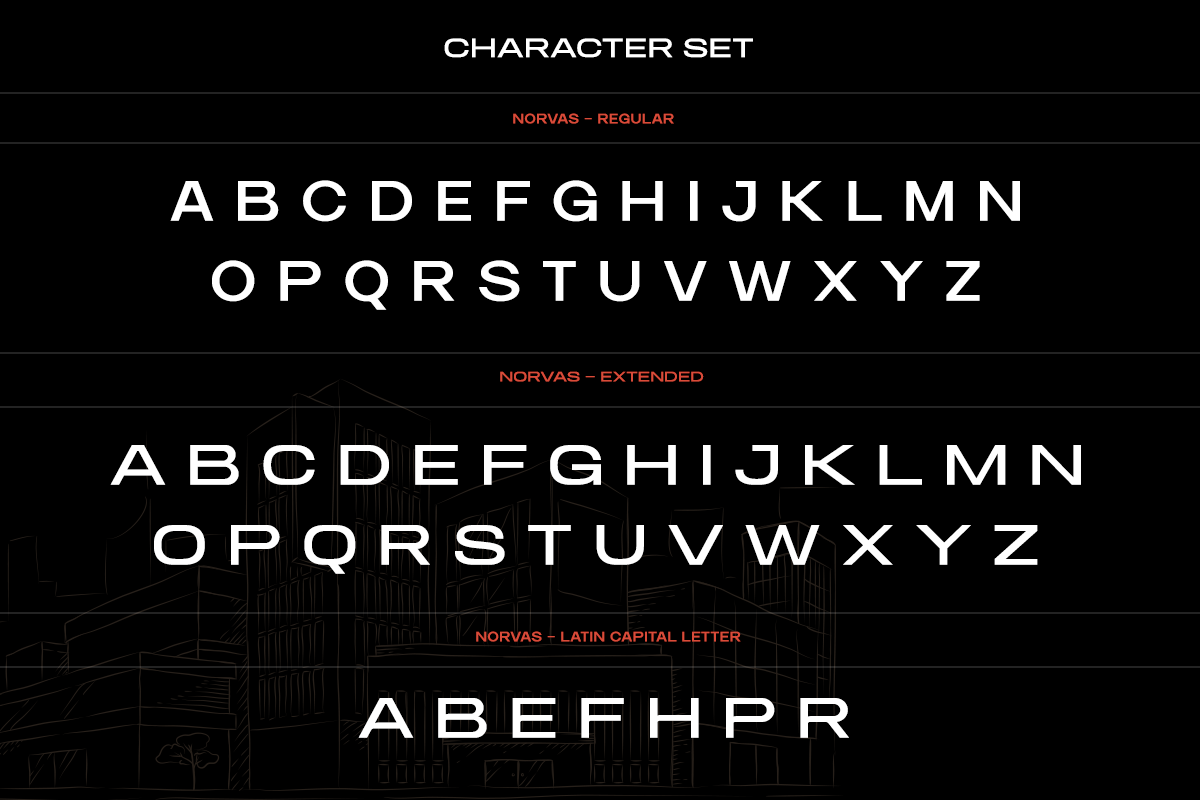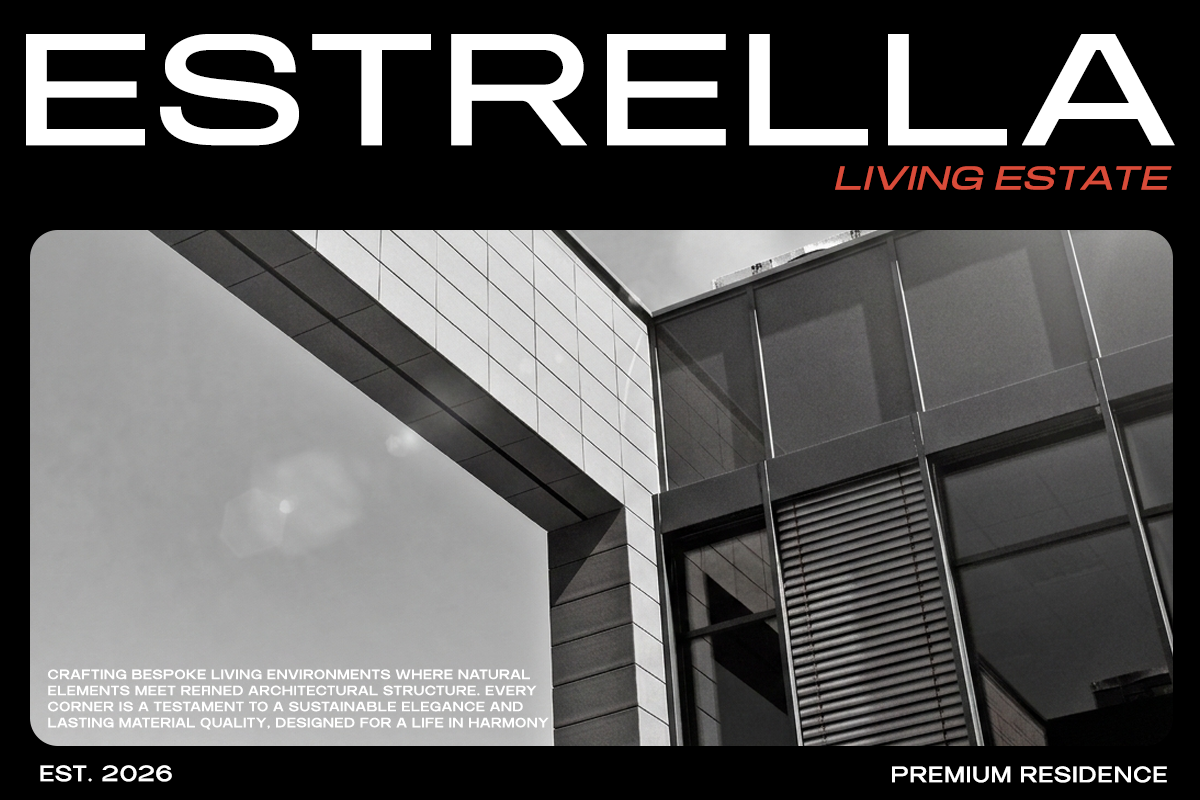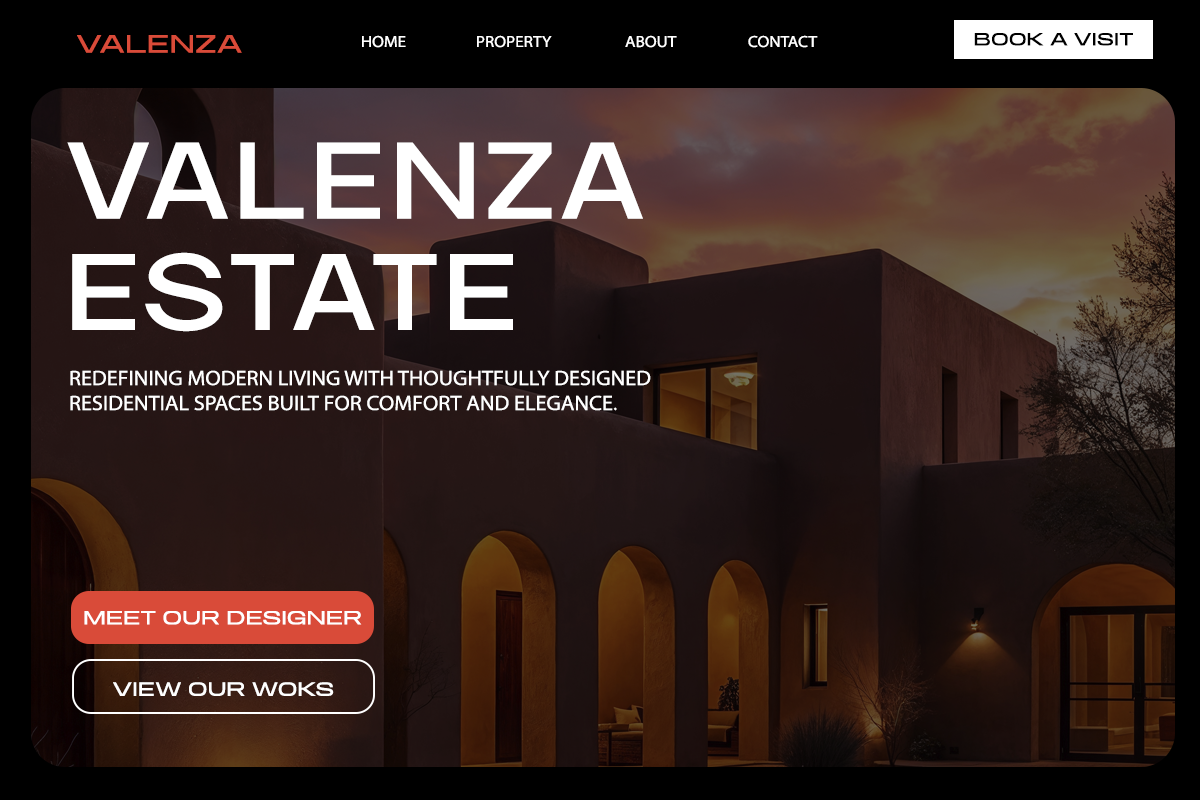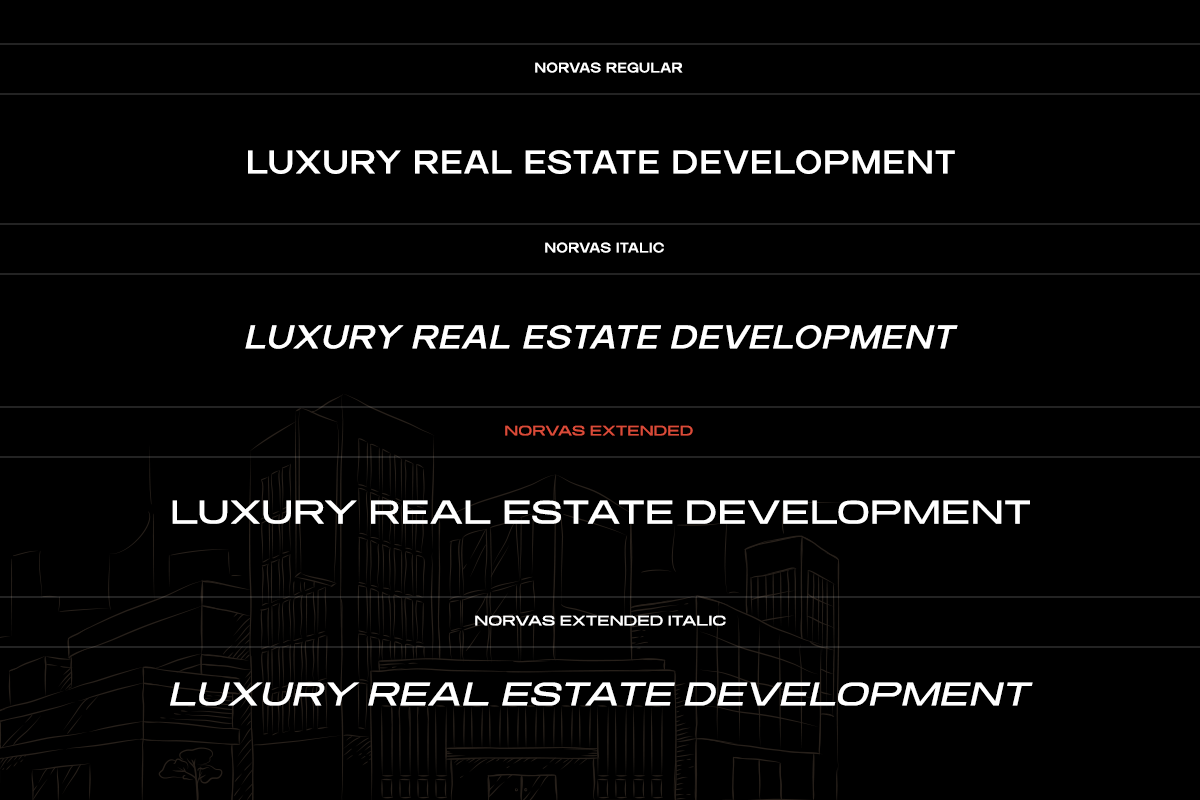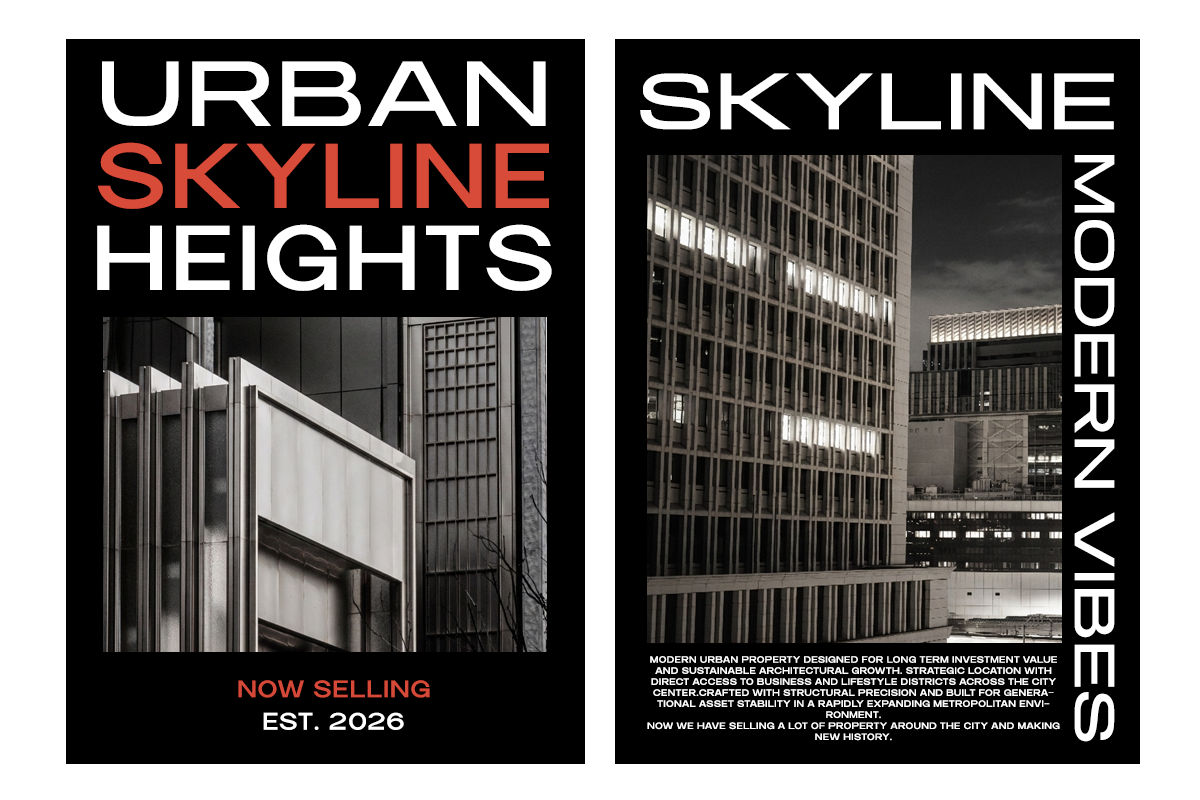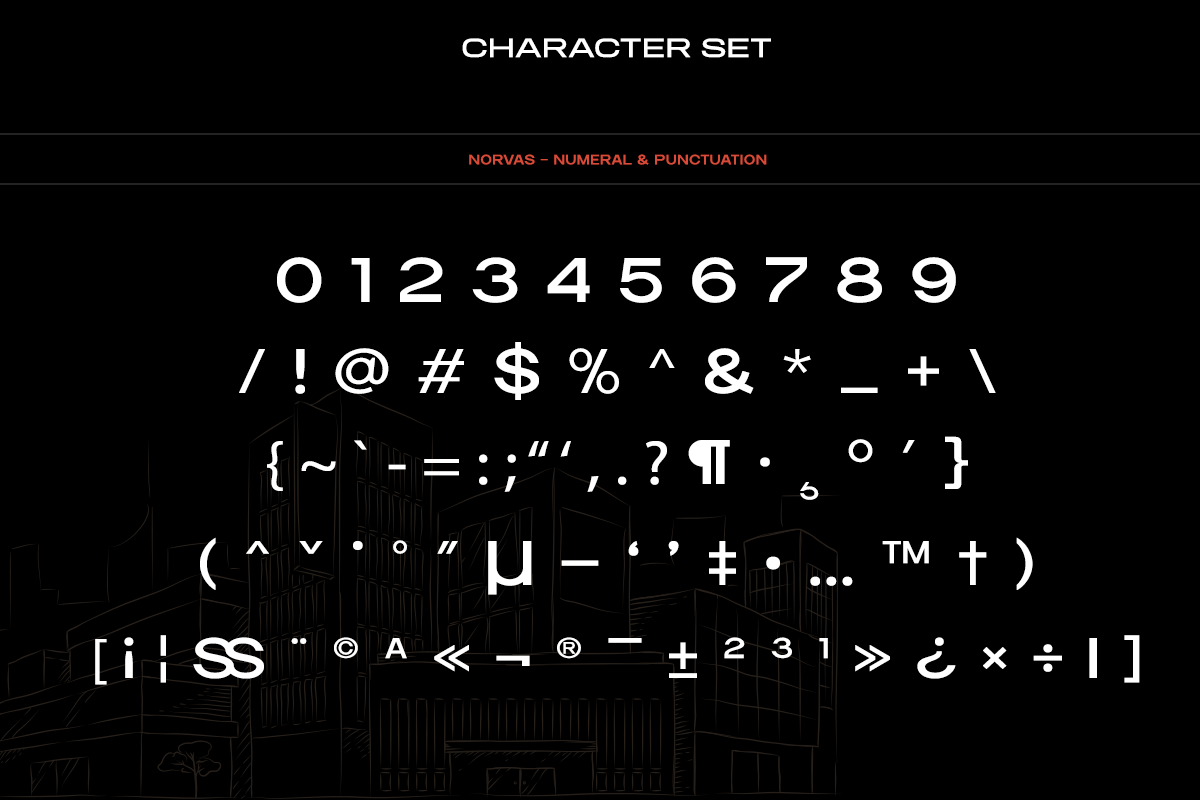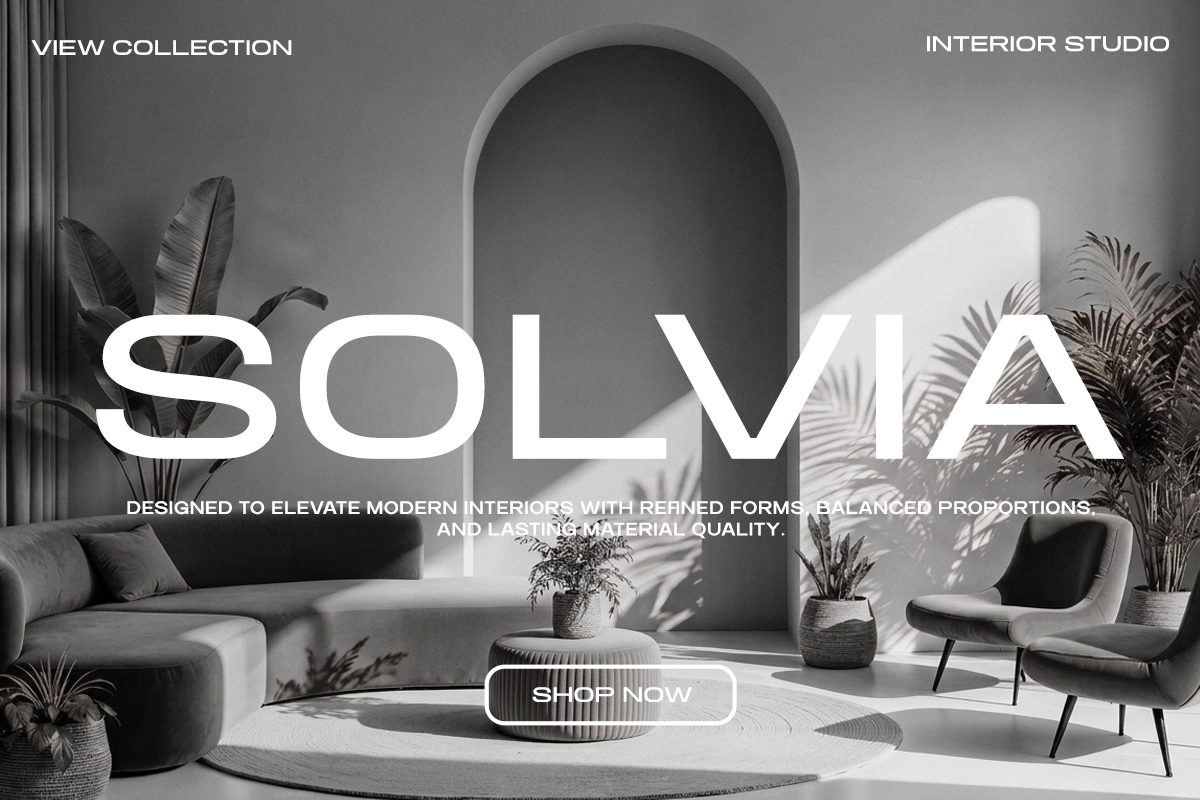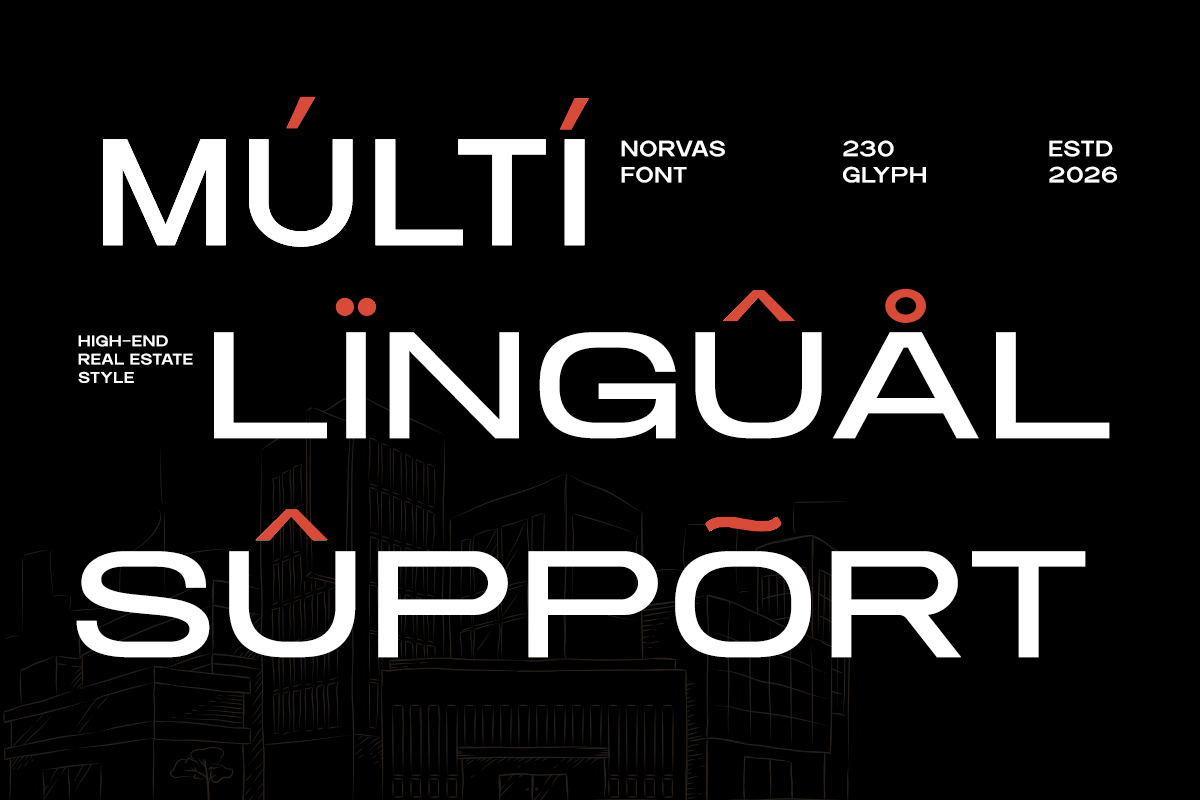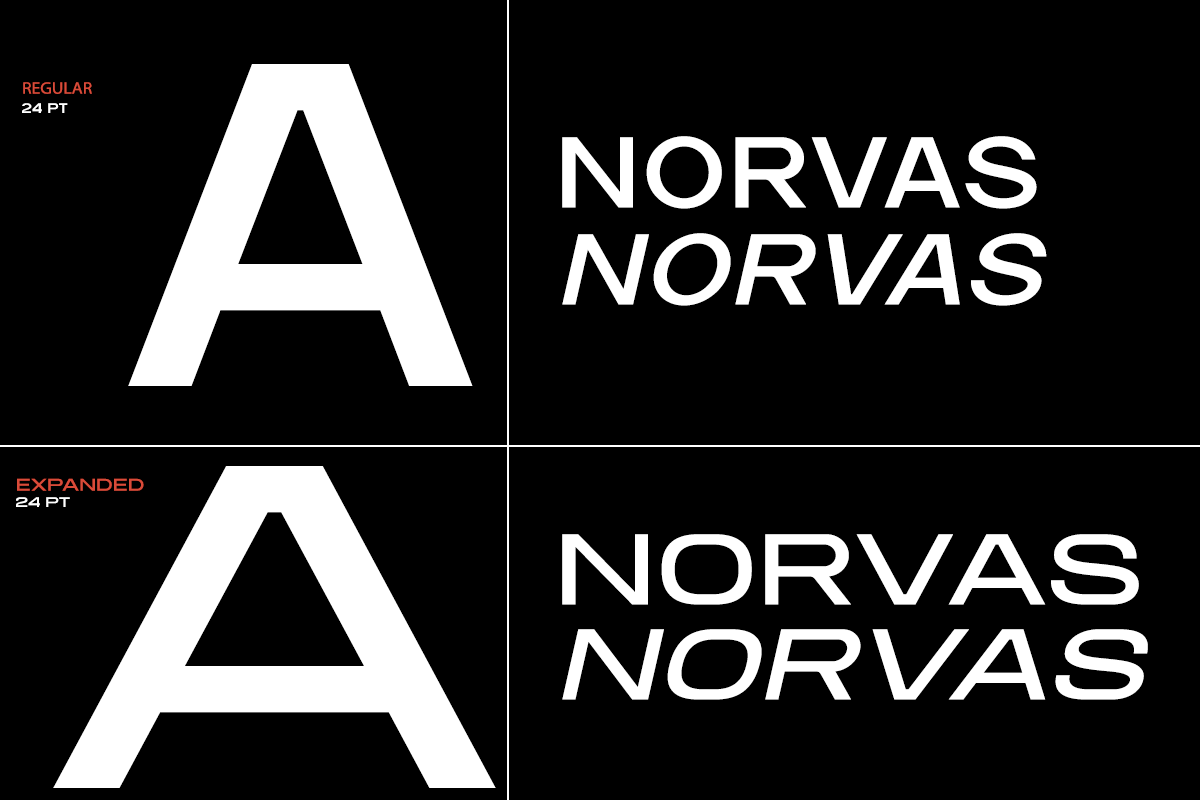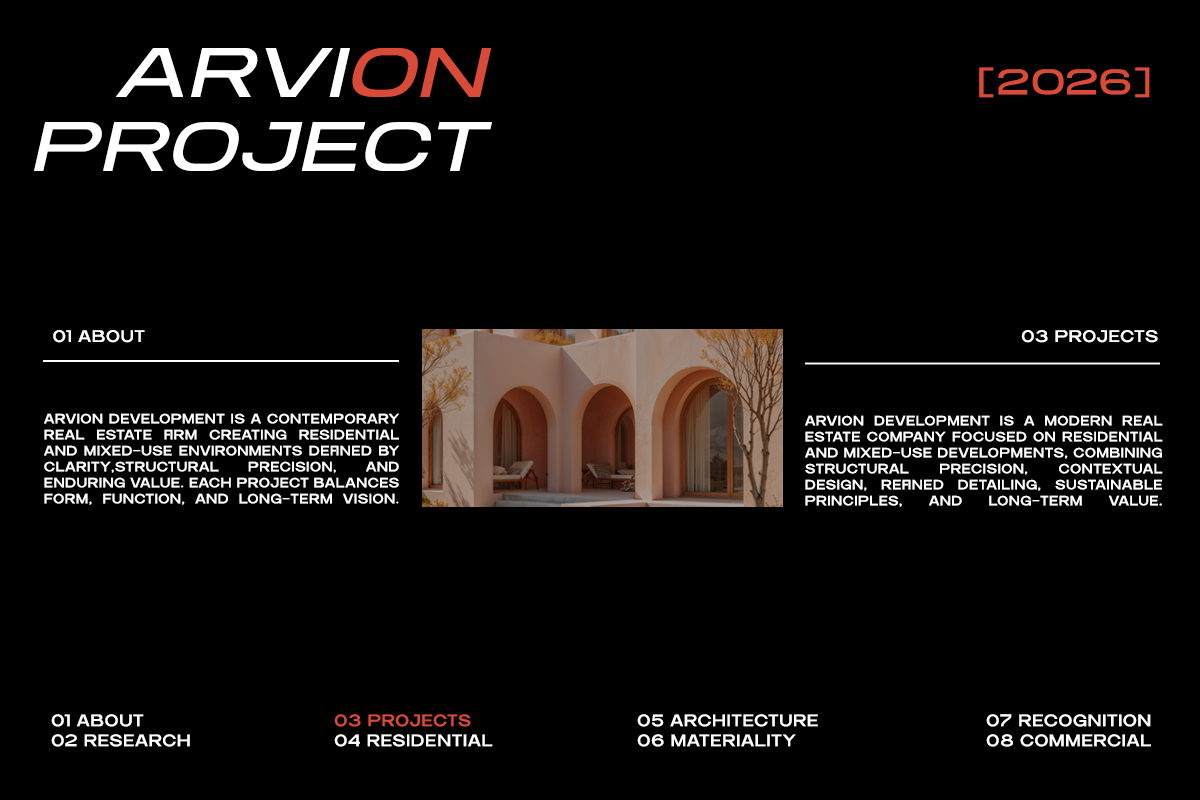
Extended Sans Serif - Norvas
Norvas is a modern extended sans serif font designed to deliver a sleek, futuristic, and confident visual presence. With its wide proportions, clean geometric structure, and sharp letterforms, Norvas creates a strong typographic identity that stands out in contemporary design. The extended style adds a distinctive modern character while maintaining excellent readability.
This font is ideal for branding, tech startups, digital interfaces, website headers, posters, advertising, product packaging, editorial layouts, and social media visuals. Its modern extended form makes it especially powerful for bold headlines, logo design, and futuristic brand identities that demand attention.
Norvas includes regular and extended styles with italic variations, providing flexibility for designers to build dynamic layouts and modern branding systems. Whether used for technology brands, corporate design, or creative digital projects, Norvas delivers a clean, professional, and striking typographic voice.